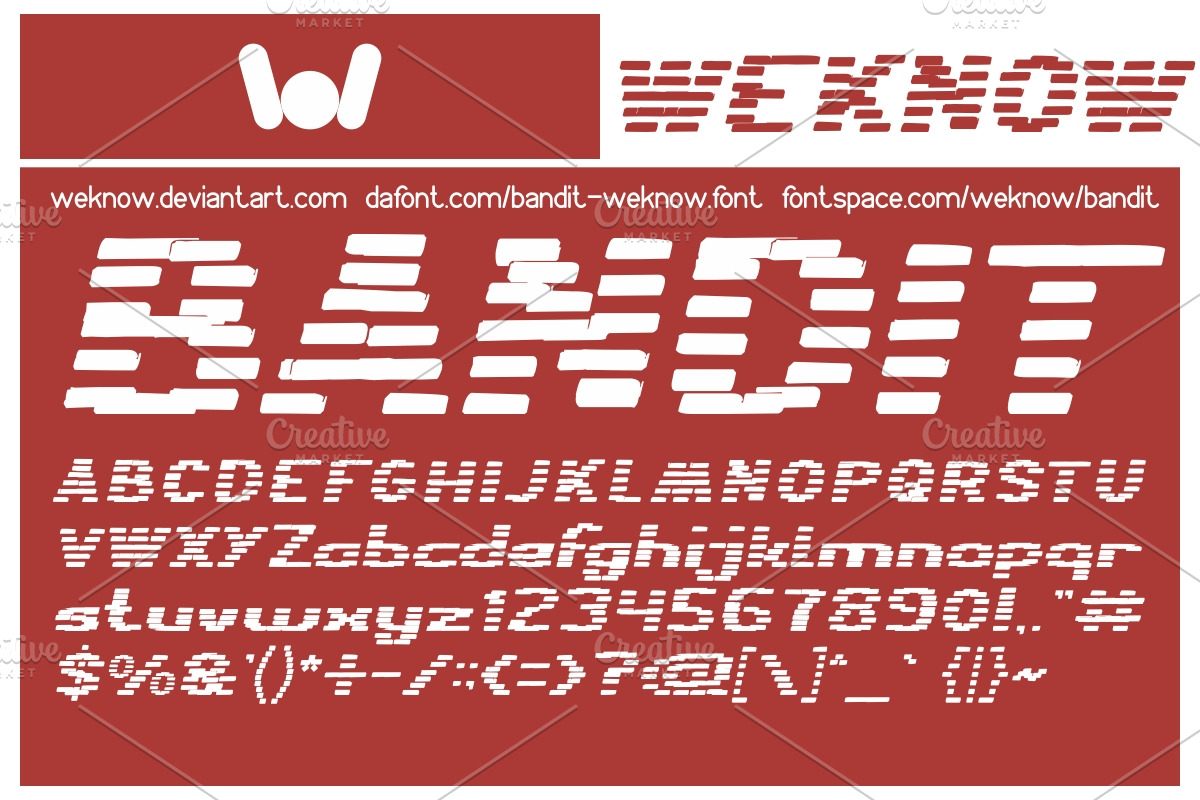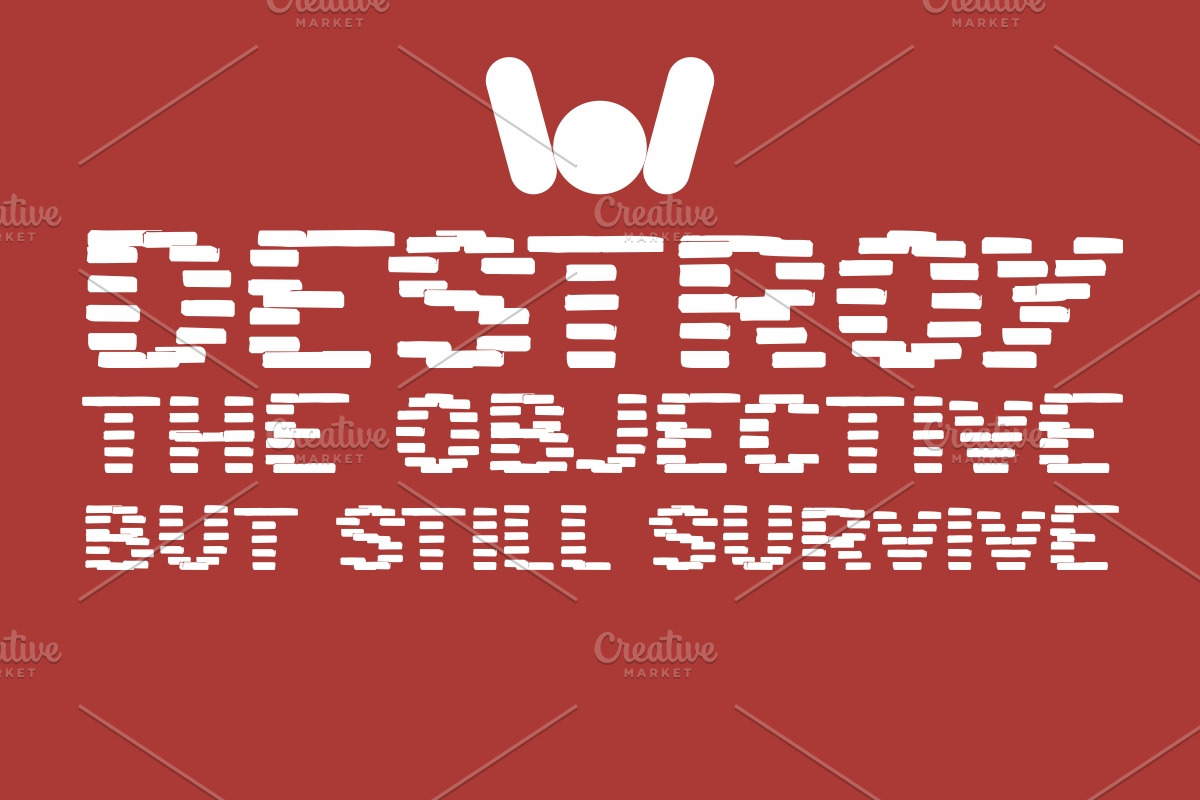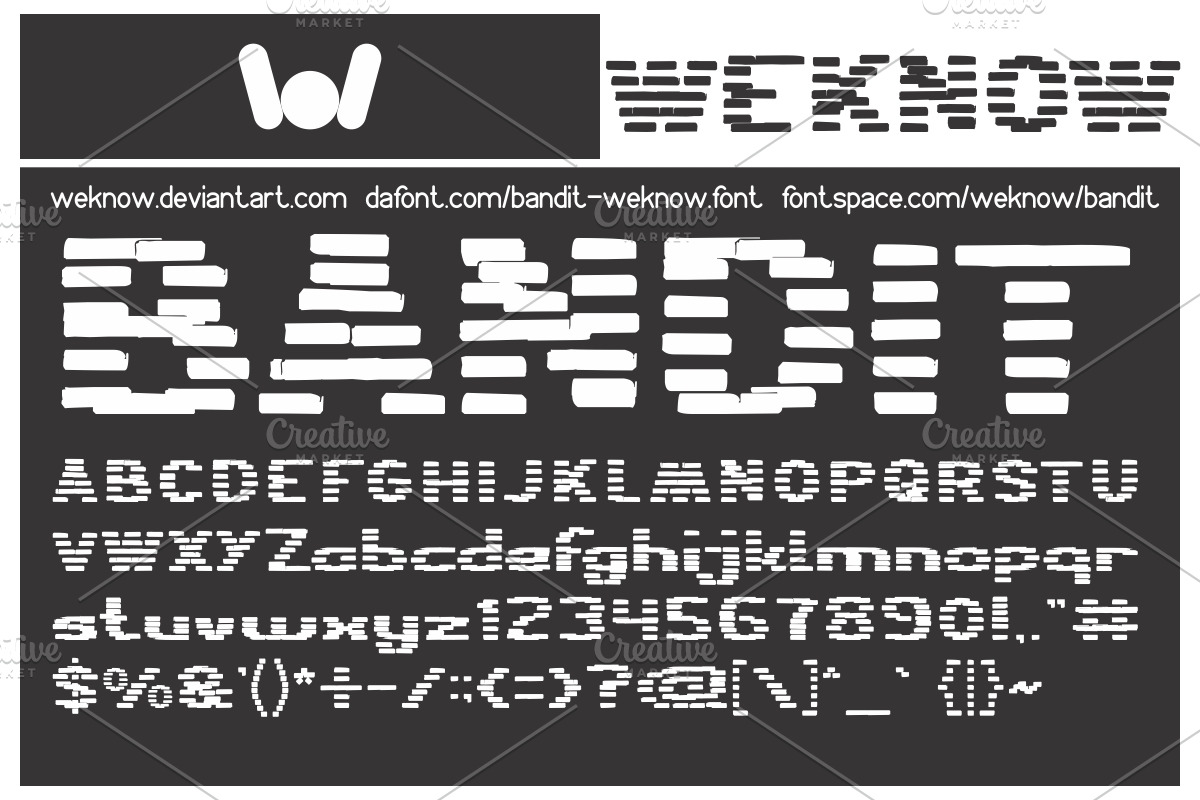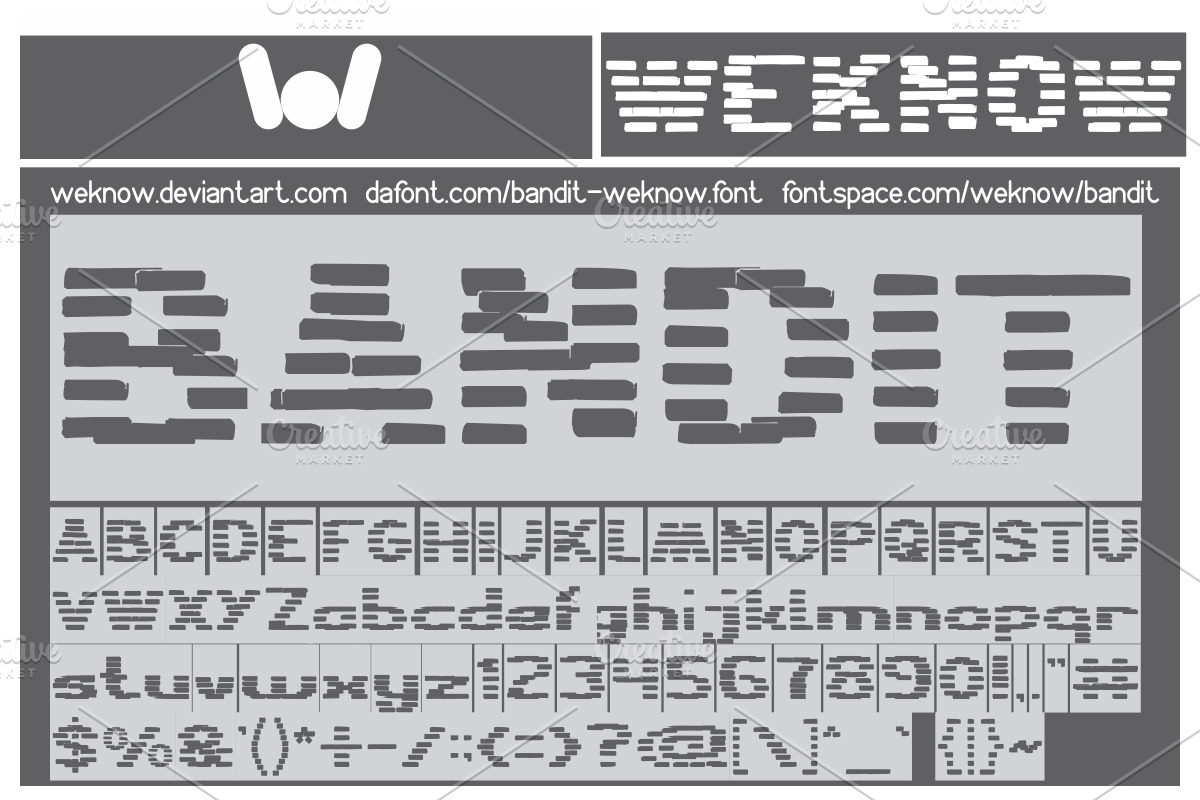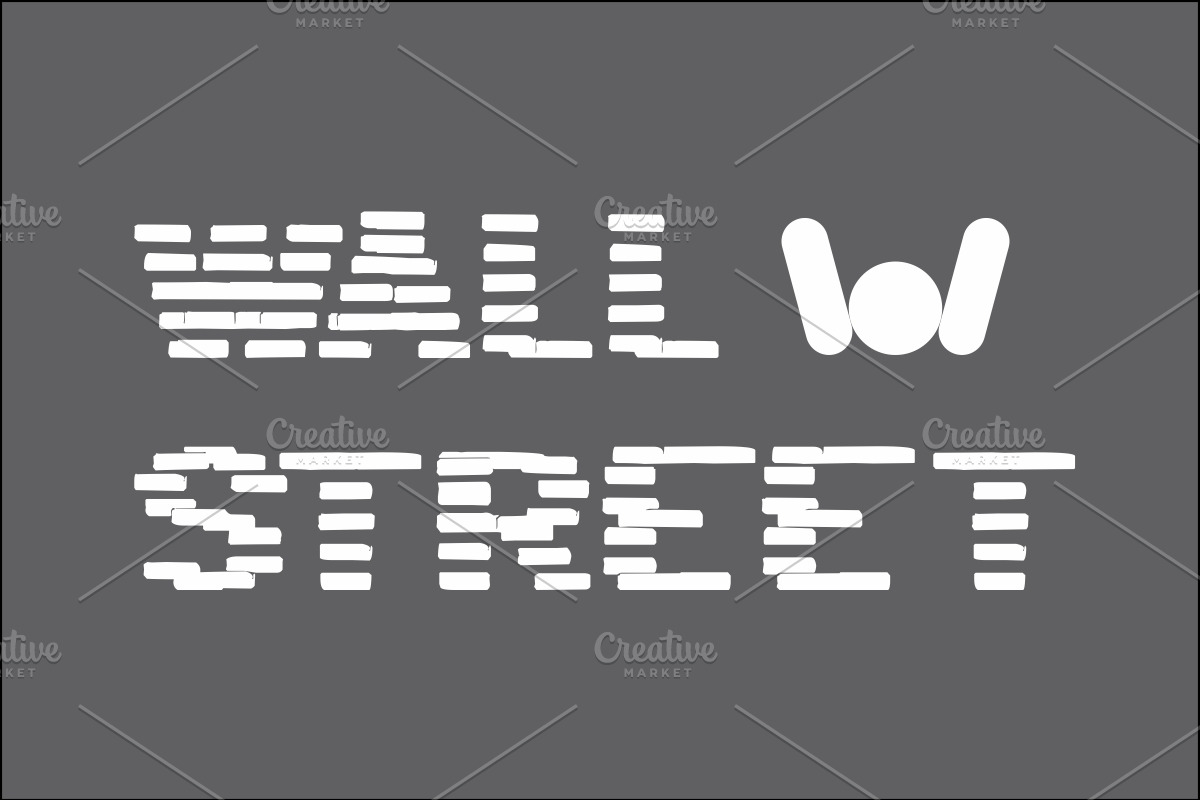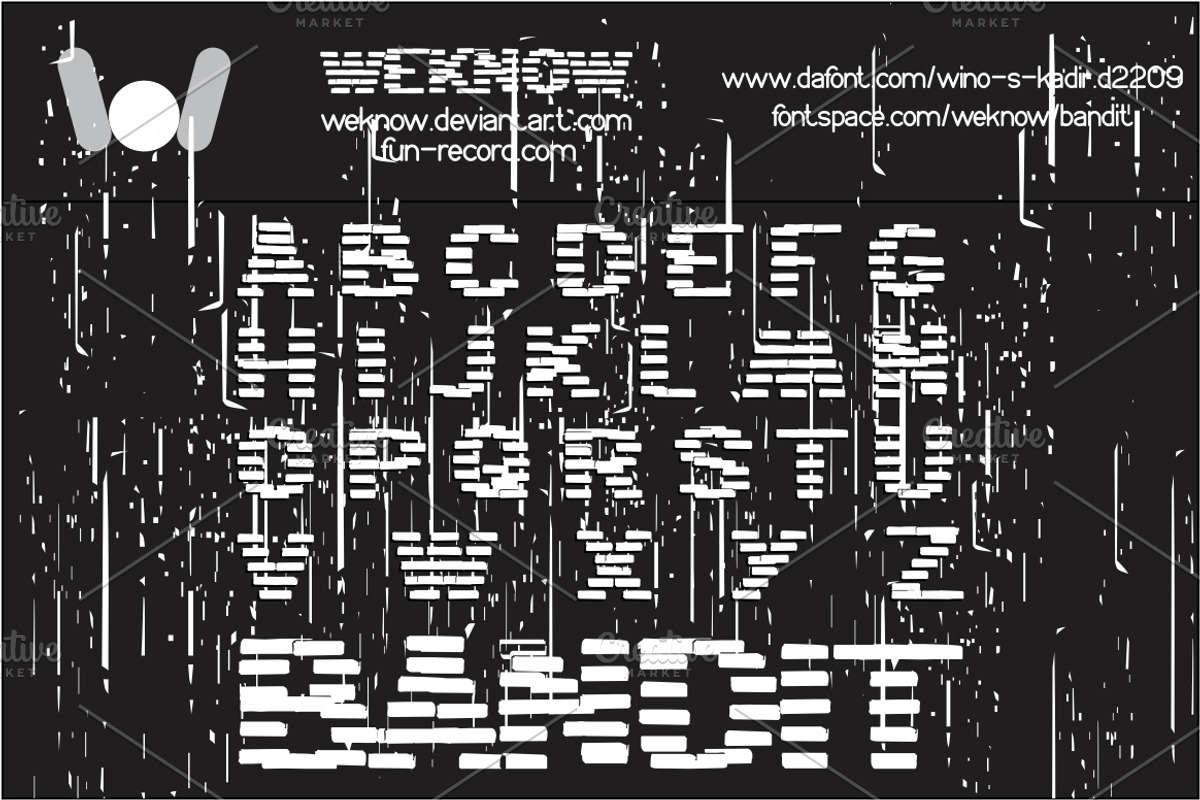
bandit font
bandit font by weknow is a font selected for branding, posters, packaging, typography.
Why bandit font is worth a look
bandit font by weknow fits naturally into Branding, posters, packaging, typography.